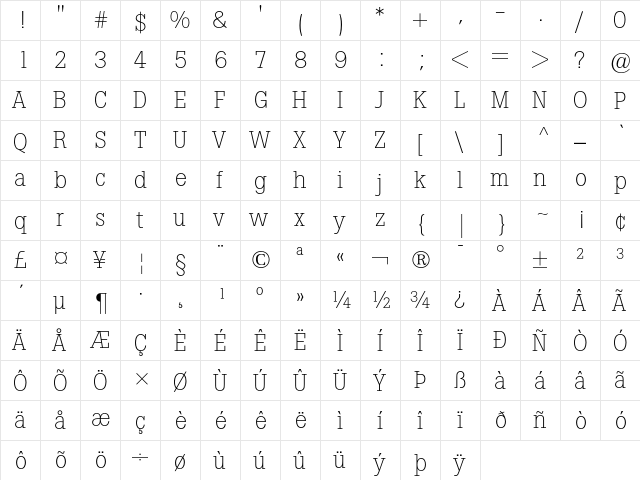
Boton Light
Design Context for Boton Typeface
Boton offers clean, dependable letterforms without strong stylistic allegiance, making it a practical choice for designers who need flexibility. Its slender proportions lend an understated elegance to any composition.